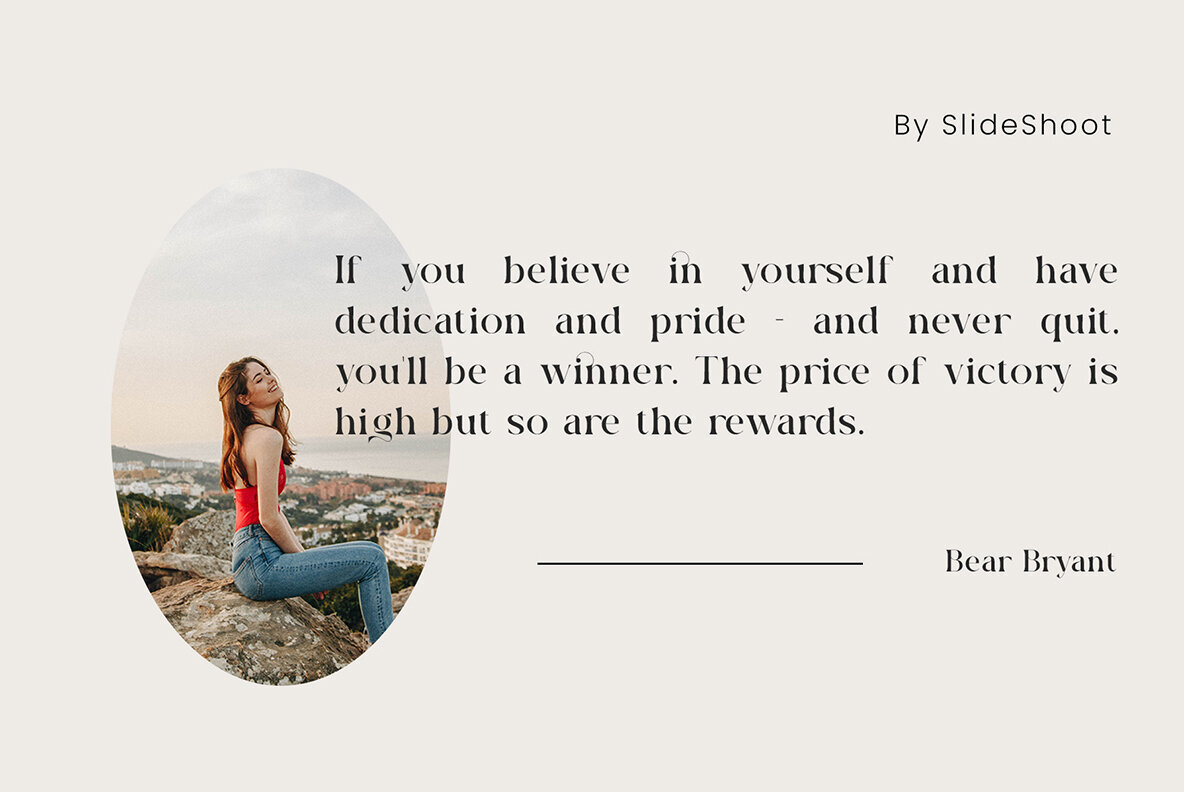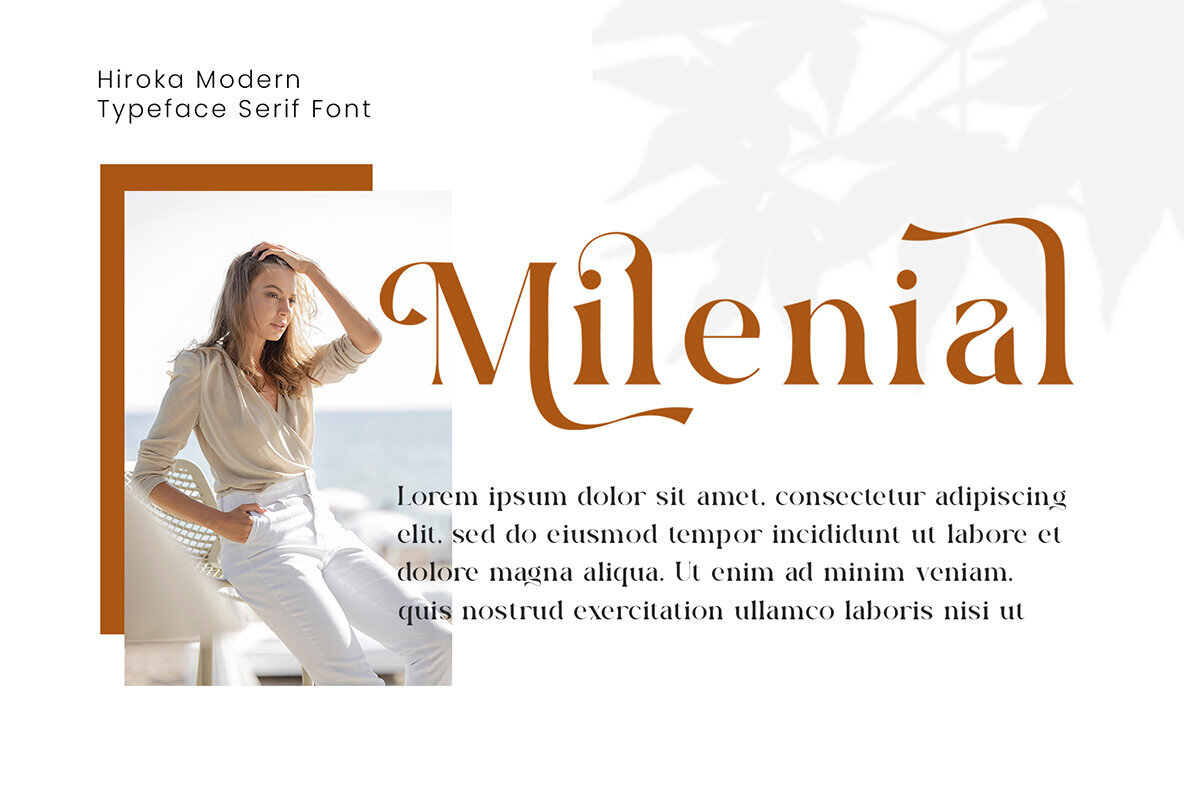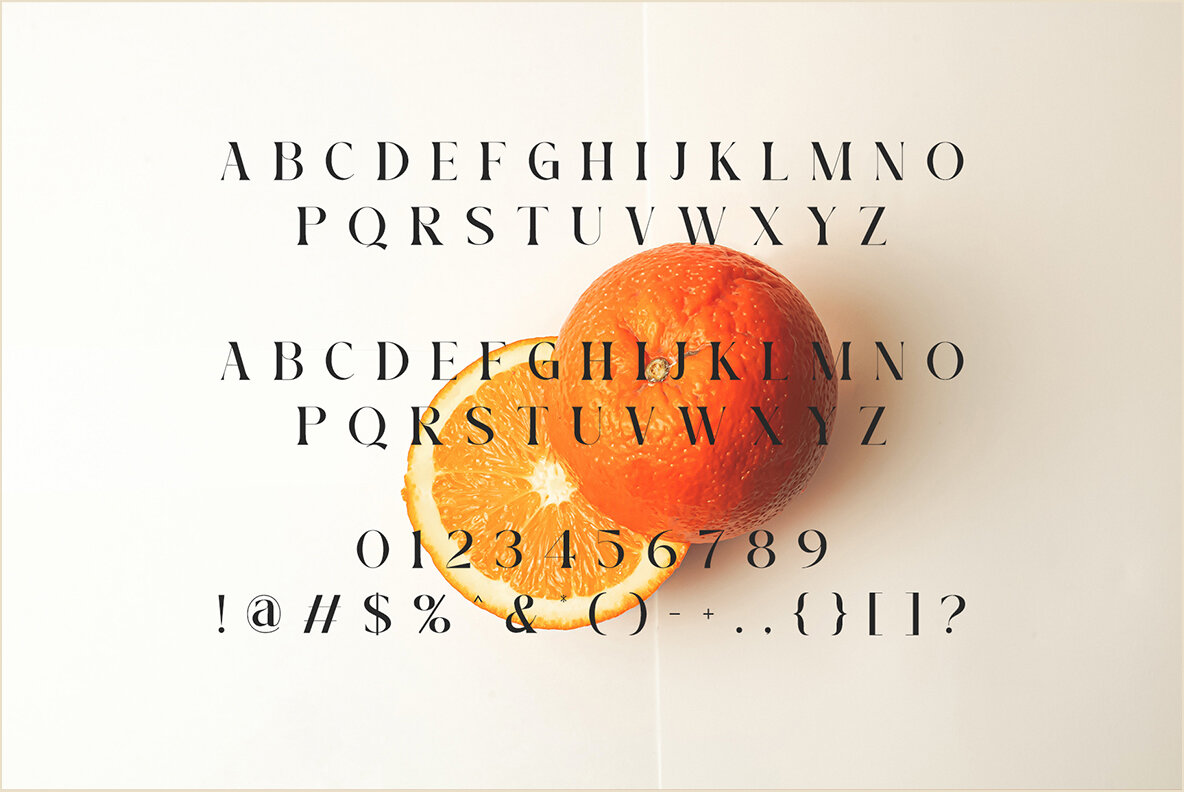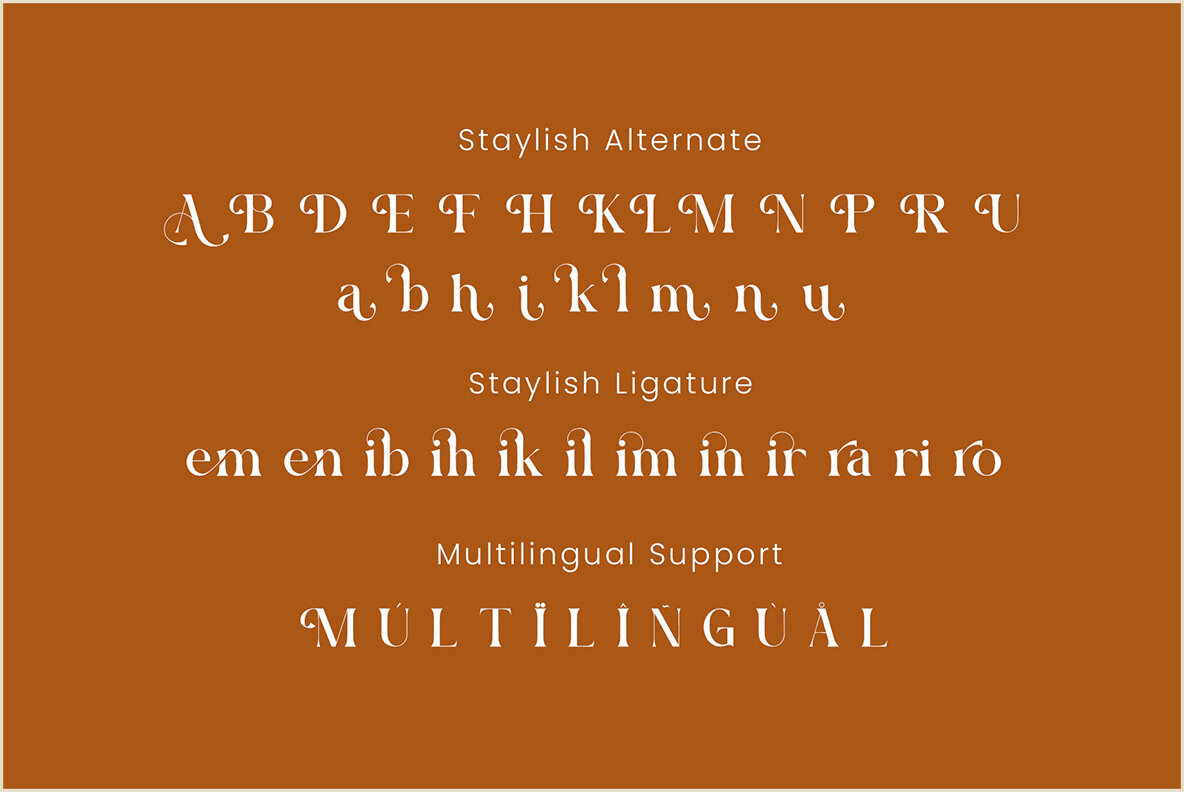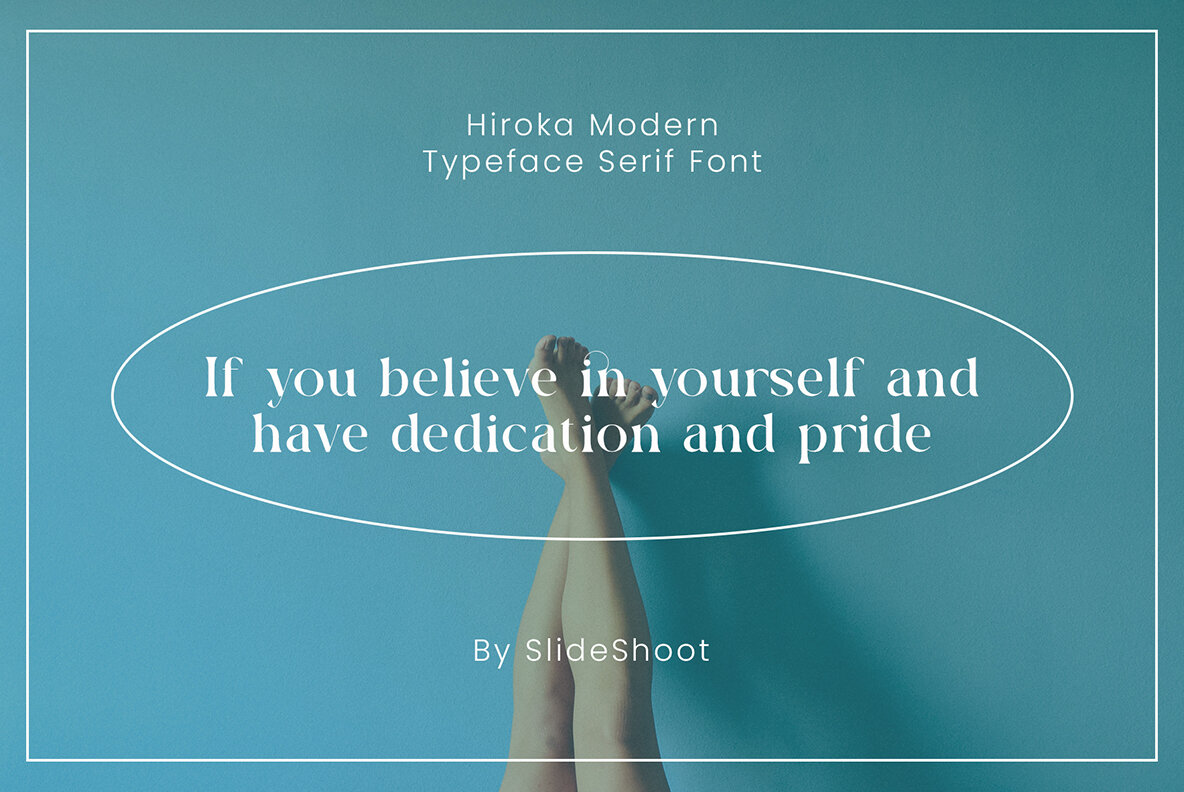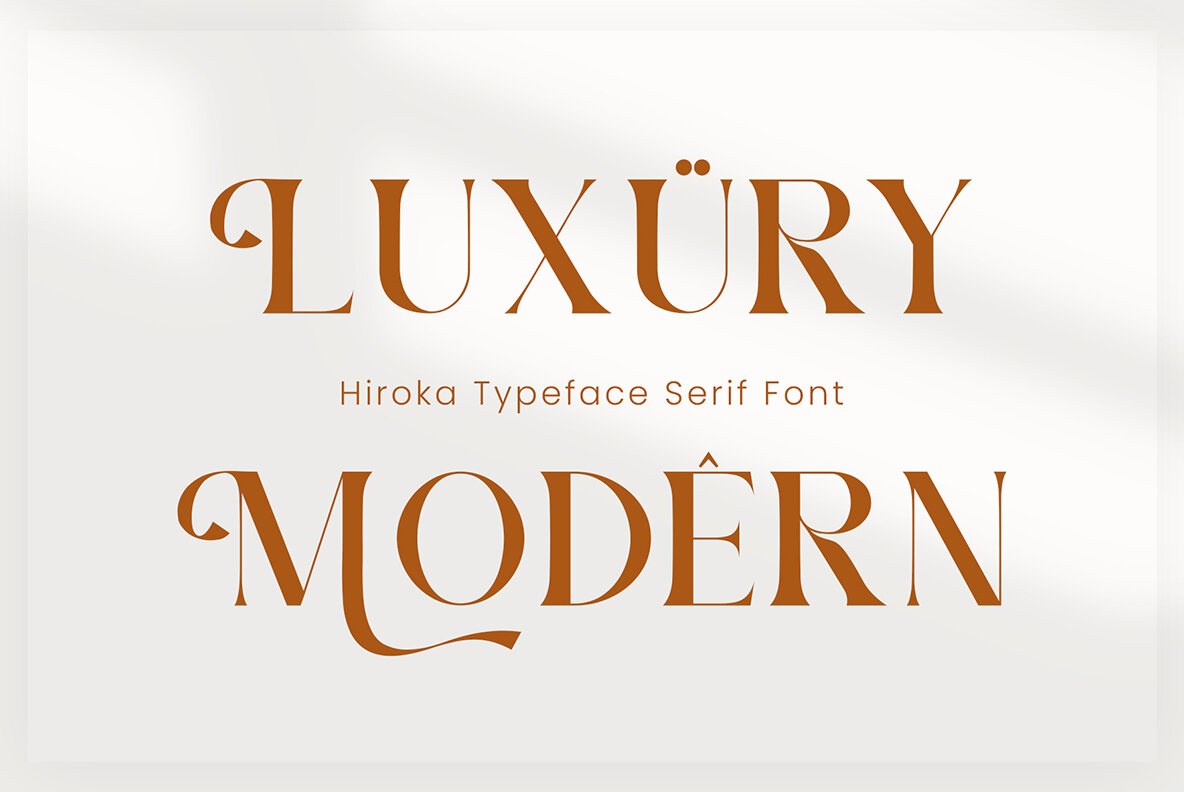
Hiroka Font
Hiroka Regular
Hiroka Serif embodies a blend of balance, smoothness, and elegance, making it an ideal choice for a wide range of design applications. It brings a unique character to invitation cards, company logos, movie titles, business cards, book covers, and brand names, enhancing each with sophistication and grace. The font's stylish alternations and ligatures provide versatility, making Hiroka Serif a perfect fit for any project.Hiroka Serif: An Elegant and Stylish Typeface